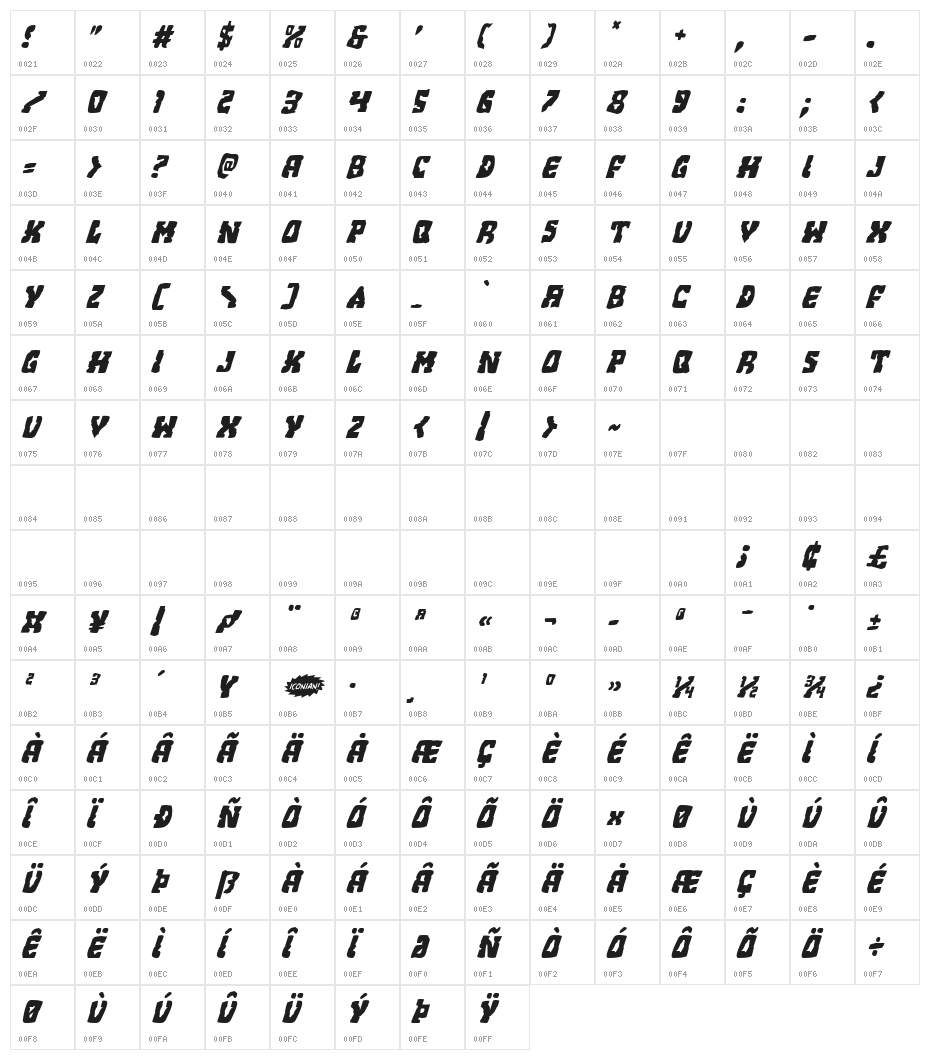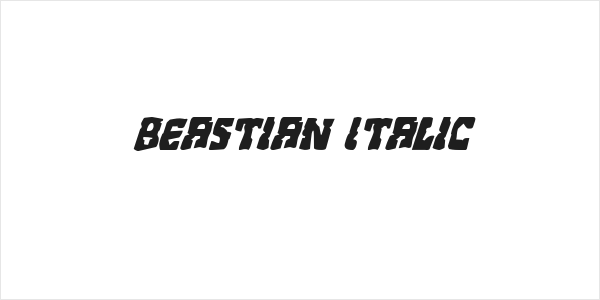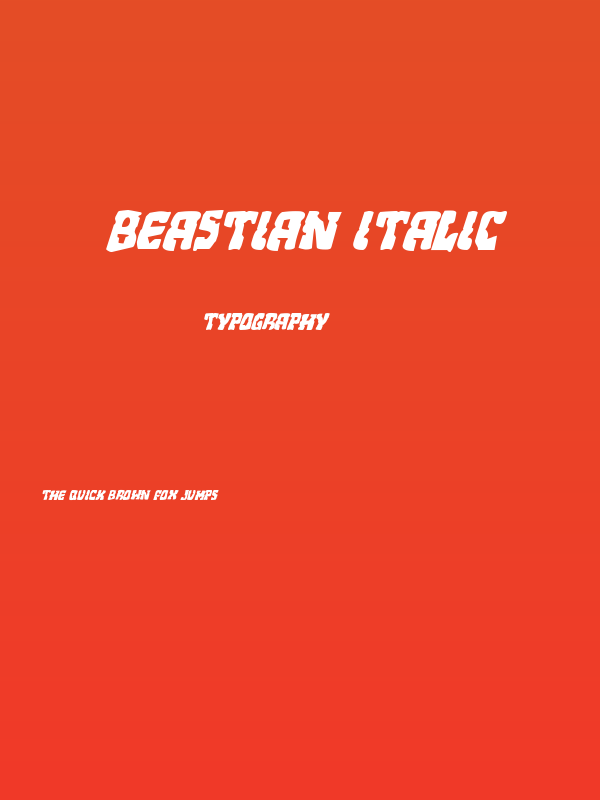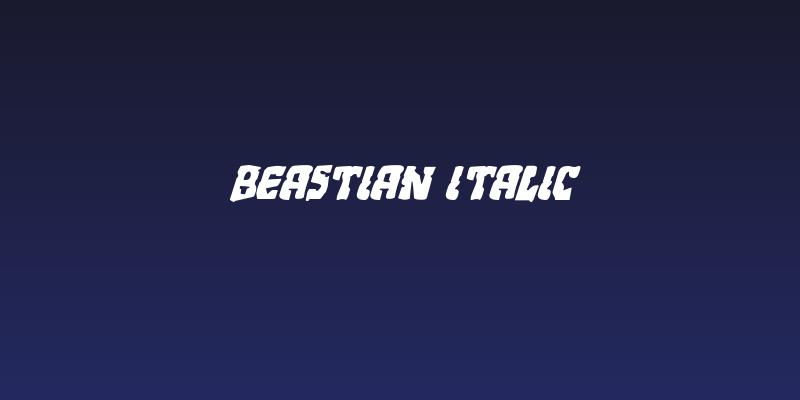
Beastian Italic Font
Beastian Italic Description
This font features a bold and dynamic style with a strong presence. The characters are heavily slanted, giving it an italicized appearance that adds a sense of motion and energy. The strokes are thick and robust, with sharp angles and edges that create a rugged and aggressive look. The uppercase and lowercase letters maintain a consistent style, while the numbers and special characters complement the overall design. This font is highly decorative and makes a bold statement, suitable for projects that require a strong visual impact.
| Proposed Projects | Ideal for sports branding, action movie posters, video game titles, and dynamic advertising campaigns. |